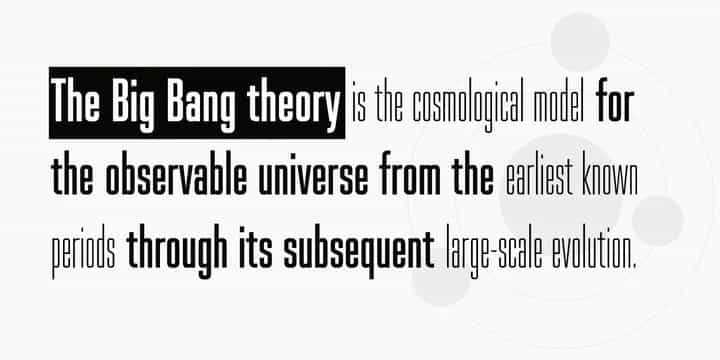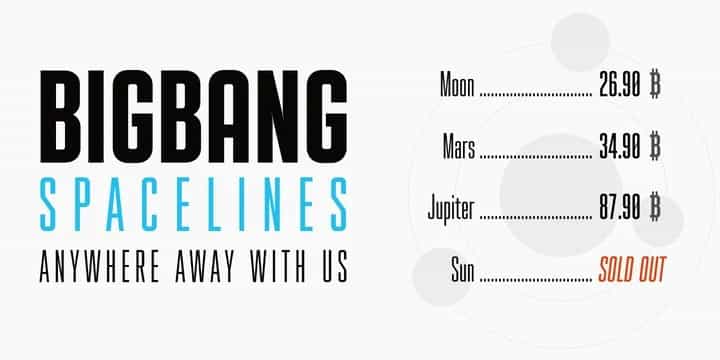
Pepper Type’s new Spaceland is an oblique and display typeface designed with constant counter width, gradual stroke increase across 11 weights, and identical Oblique’s. We are delighted to present its arrival!